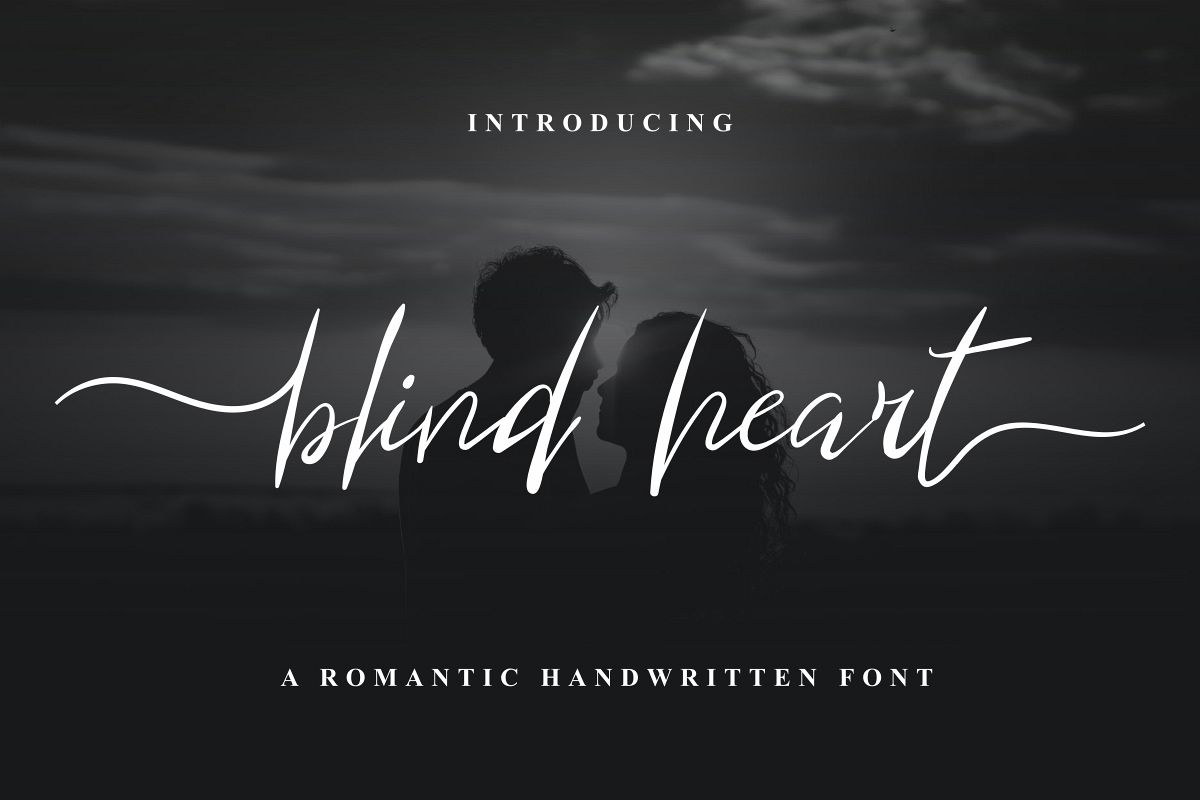
blind heart
Introducing our newest font : Blind Heart !
This is a new modern script handwriting calligraphy style font. It has a fresh, elegant, natural and stylish glyphs. Will be perfer for any designs projects.On the package, You will get :
Blind Heart has Alternatives glyph on each style. It is also support multi languagesBlind Heart is a sophisticated styling font which will be perfect for branding, logo, photography and signature. It is so elegant, classy, strong and beautiful.This font will Work on PC & Mac with Simple installations. Accessible in the Adobe Illustrator, Adobe Photoshop, Adobe InDesign, even work on Microsoft Word. It’s also PUA Encoded Characters – Fully accessible without additional design software.Purchase with confidence! =)